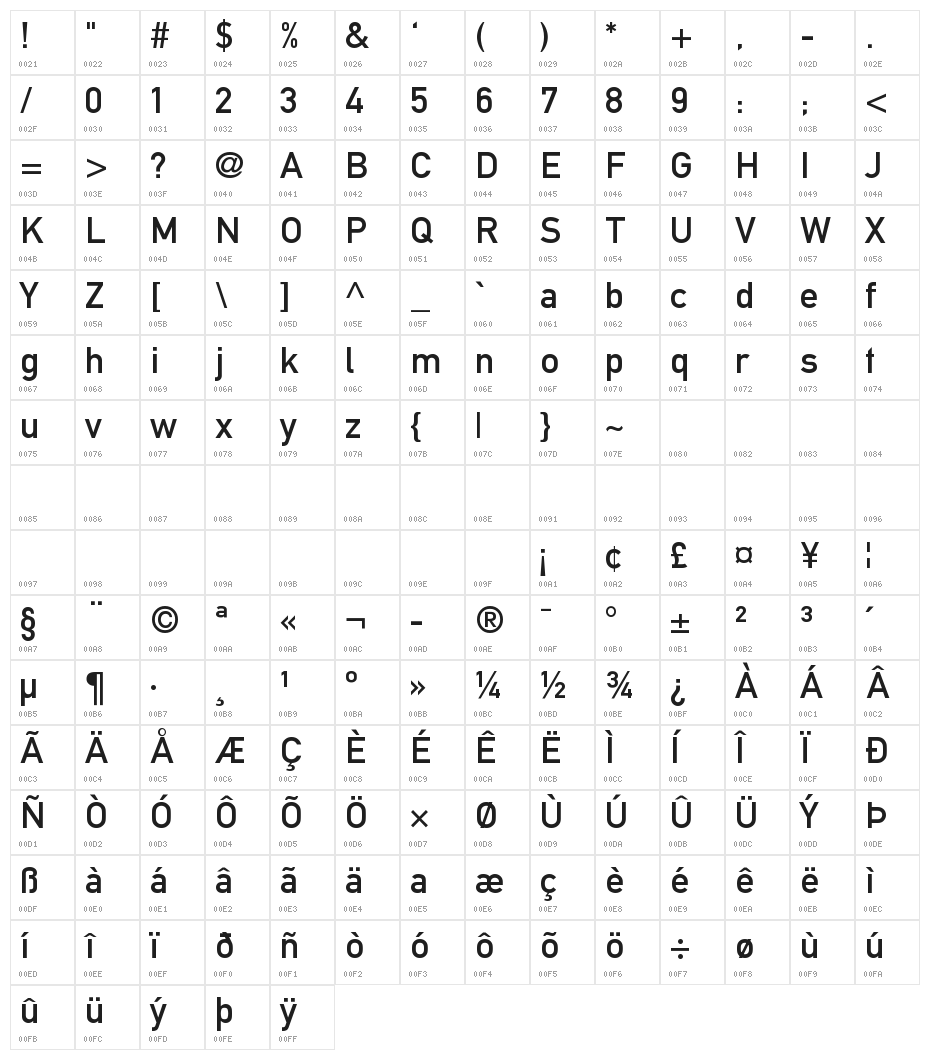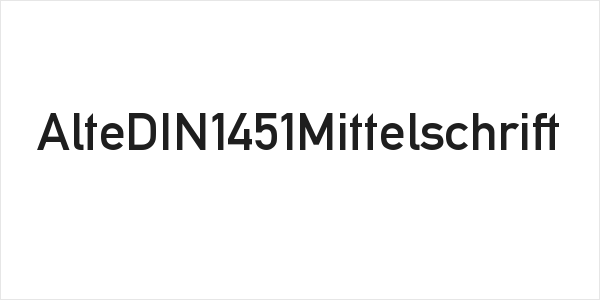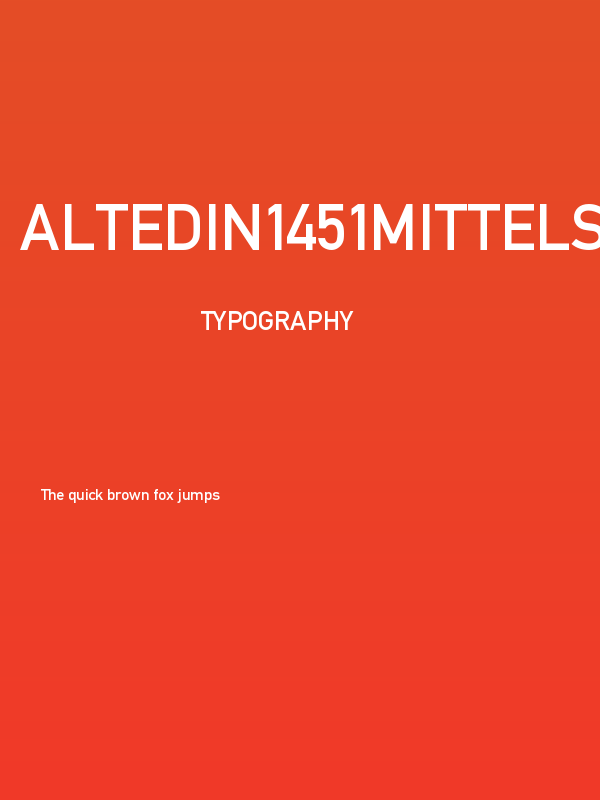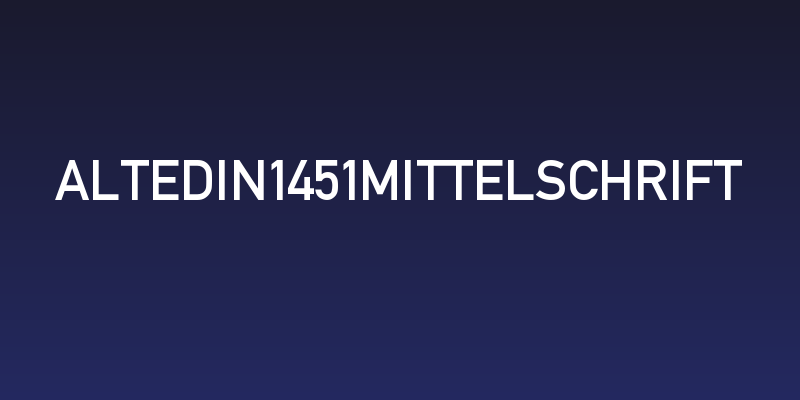
AlteDIN1451Mittelschrift Font
AlteDIN1451Mittelschrift Description
This typeface is a clean, geometric sans-serif font characterized by its clarity and legibility. It features uniform stroke widths and a straightforward, no-nonsense design that emphasizes functionality. The characters are well-proportioned, with a modern and industrial feel, making it suitable for a variety of applications. The uppercase letters are bold and commanding, while the lowercase letters maintain a consistent height and width, ensuring readability. The numerals are clear and distinct, and the special characters are designed to match the overall aesthetic of the font. This font is versatile and can be used in both digital and print media.
| Proposed Projects | Ideal for signage, technical documents, branding, and user interfaces where clarity and legibility are paramount. |